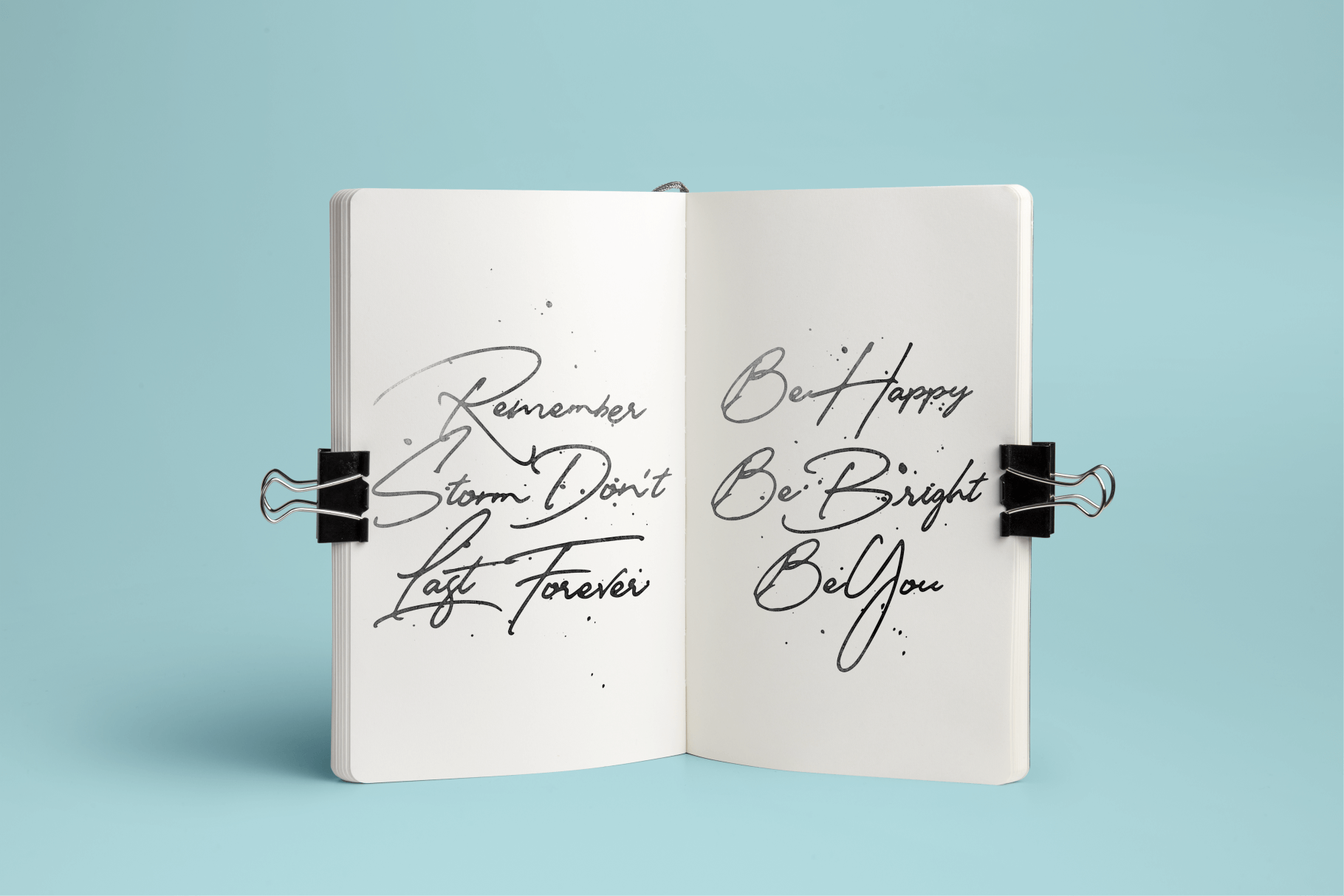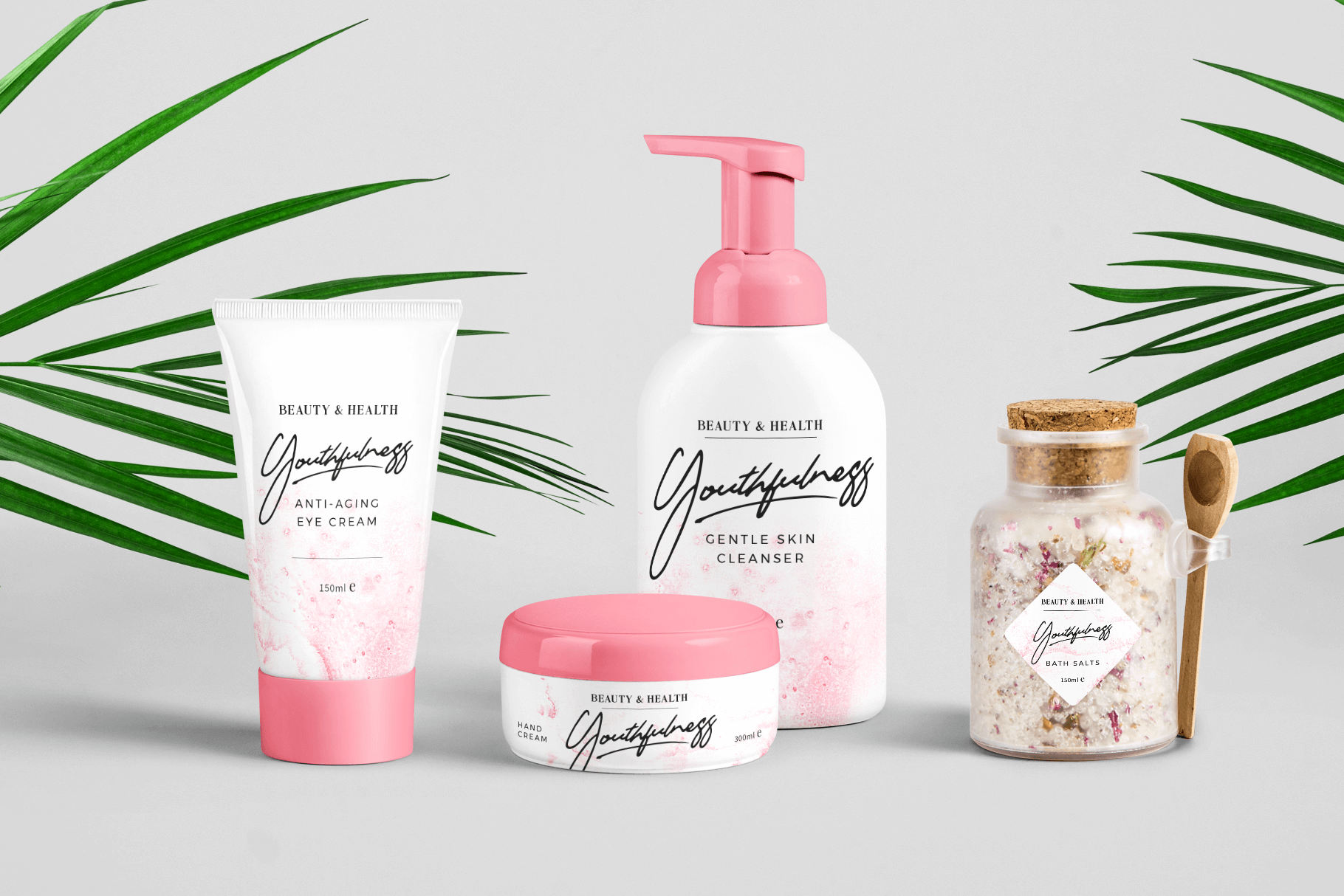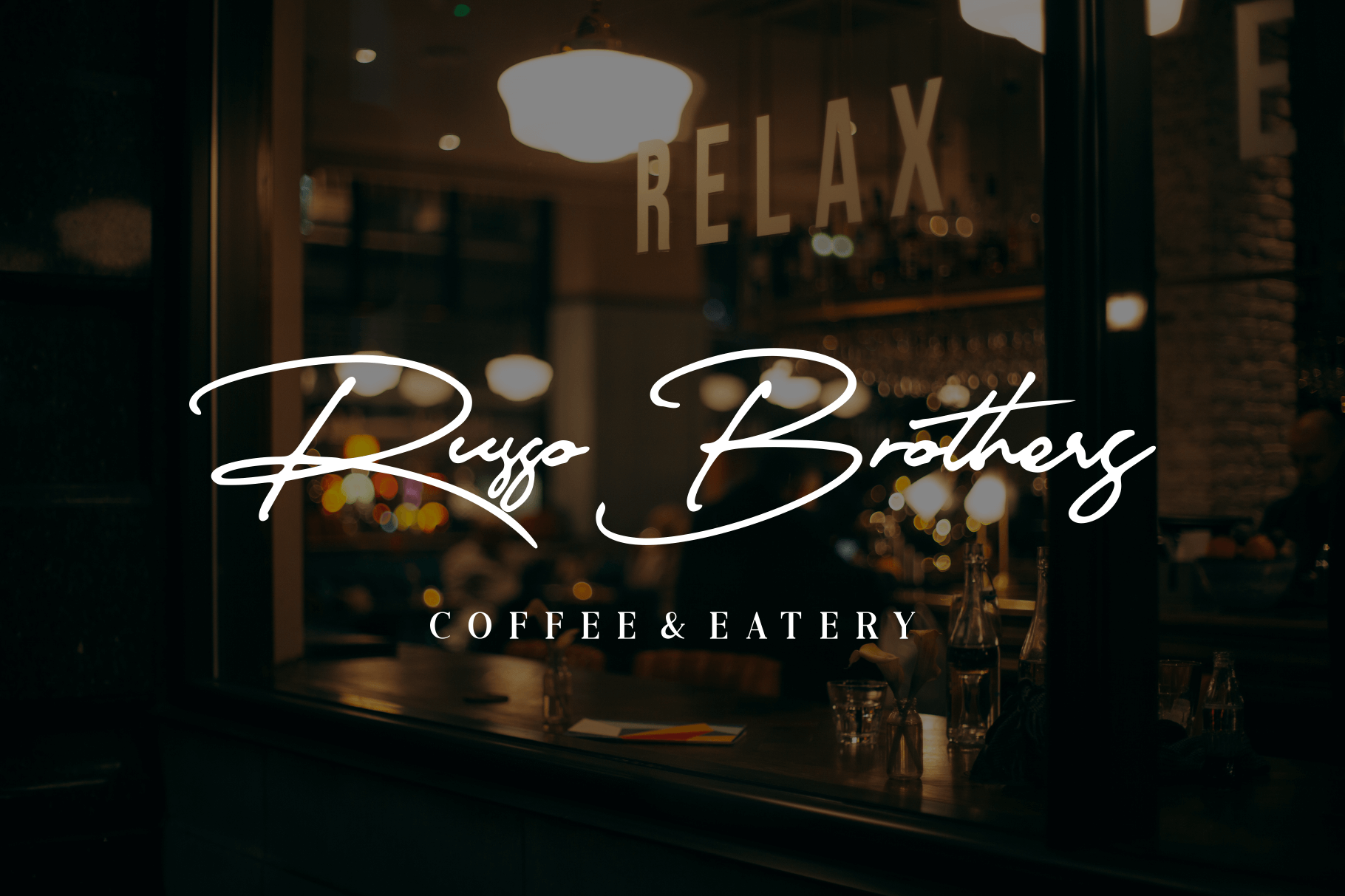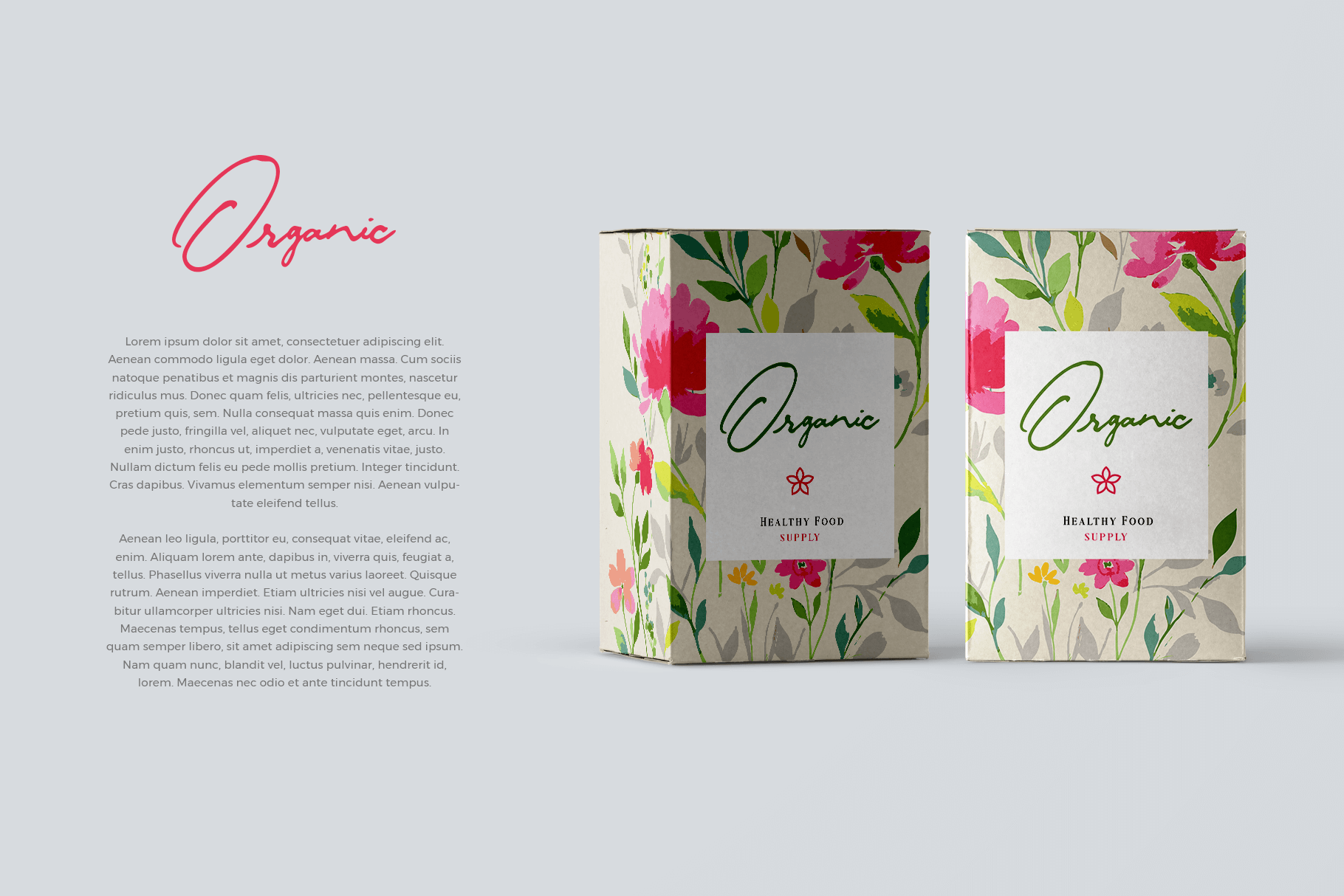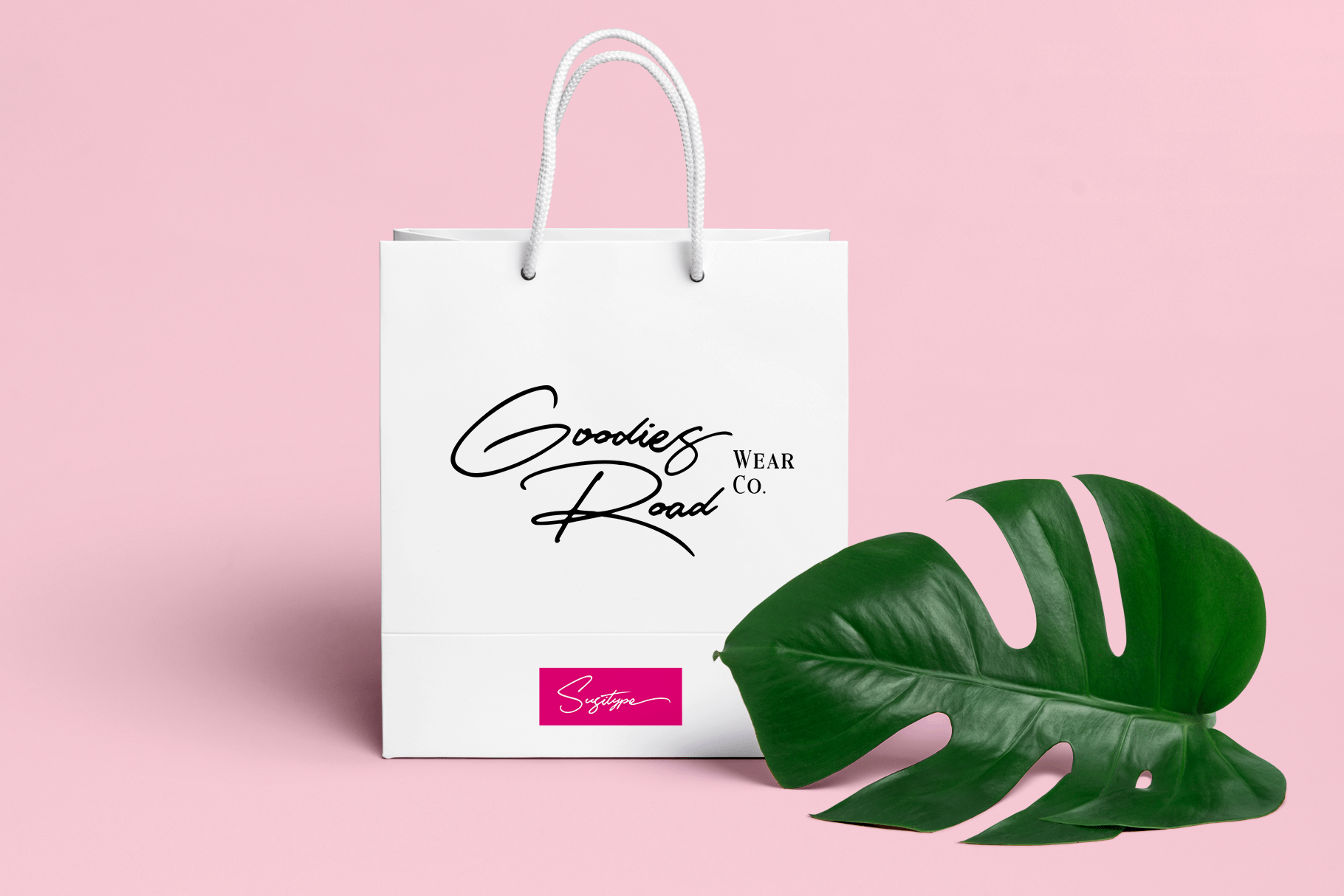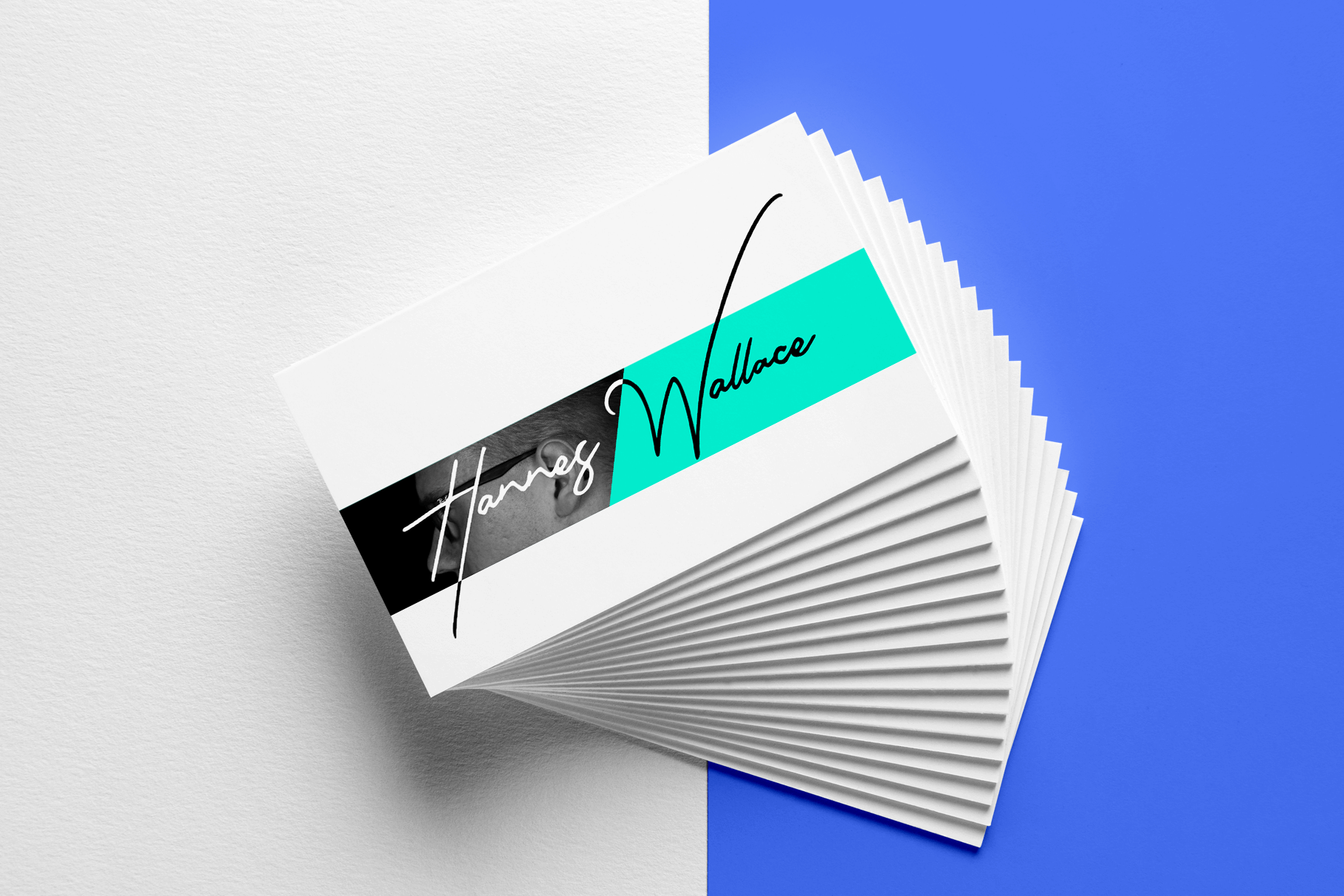
Introduction to Matsury Font
Matsury is an elegant signature script, perfect for creative projects that need an organic feel without compromising on style.
This font has a ton of alternate characters so you can mix and combine to craft stellar typography each and every time .
Key Features of Matsury Font